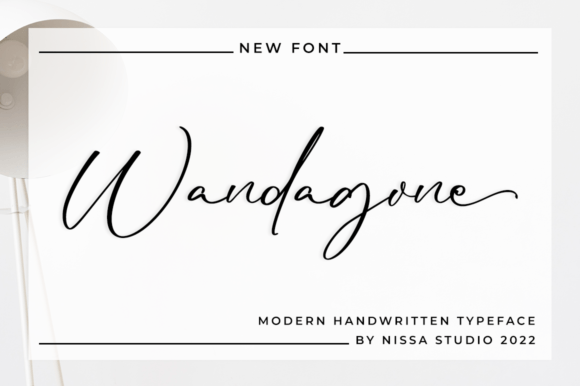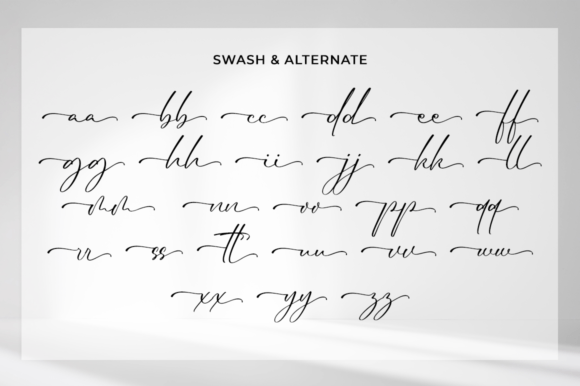
About Wandagone Font
This font’s unique feel and stunning appearance make it perfect for a variety of design needs, from branding to invitations.
A Unique and Elegant Handwritten Style
The handcrafted style of Wandagone sets it apart. Its smooth, flowing lines and delicate curves give your text an authentic, personal touch. This font captures a refined and graceful handwriting style that instantly elevates any project.
Perfect for Luxurious Designs
Wandagone is ideal for projects that demand a luxurious and sophisticated look. Whether you are working on logos, wedding invitations, social media posts, or packaging, this font delivers a polished and elegant finish. Its subtle charm adds a sparkle that enhances the overall design.
PUA Encoded for Ease of Use
This means you can easily access all of its unique glyphs, swashes, and ligatures without additional software. This feature allows you to add creative flourishes effortlessly, making your typography more dynamic and expressive.
Versatile for Many Applications
It works well for branding, product packaging, business cards, and digital media. Its delicate style also fits beautifully with personal stationery and greeting cards, bringing a heartfelt touch to your work.
Why Choose Wandagone?
Wandagone font is more than just a typeface; it’s a design tool that brings elegance and personality to your creations. Its delicate nature combined with modern usability makes it perfect for designers who want to blend sophistication with creativity.
In summary, Wandagone font offers a unique, elegant handwritten style that enhances any design project. Its PUA encoded features and versatile application make it a valuable addition to your font library.